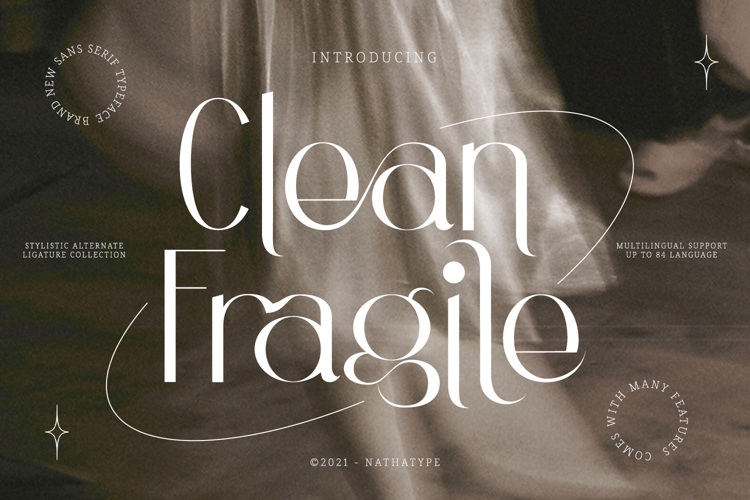
Clean Fragile Font
About Clean Fragile Font
Product Description:
Clean Fragile is a gorgeous sans serif font, designed with the modern vibe. This font is perfect for anything adventurous, and direct. Every stroke, and curve was created to entice happiness and elegance.
Features:
• Ligatures
• Stylistic Sets
• Swashes
• PUA Encoded
• Numerals and Punctuations